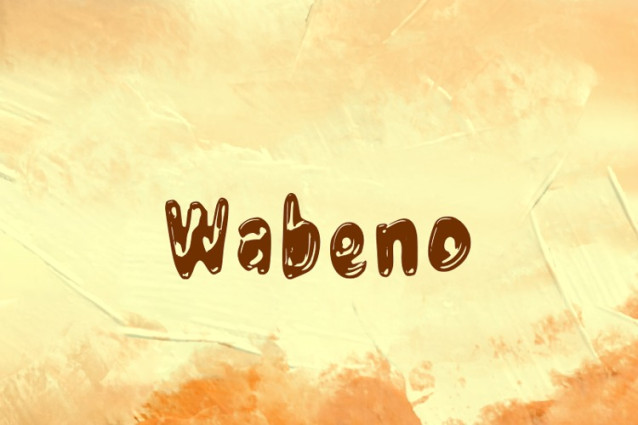
Wabeno Font
Wabeno Font, suitable for any design needs : logo, branding, modern advertising design, logos, poster quote, book / cover Title, editorial design, website / blog, card, t-shirts, and any hand-lettered needs.
Classification: Display Fonts, Stencil Fonts